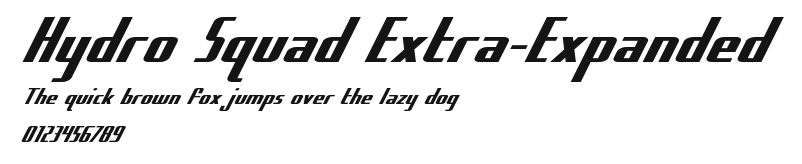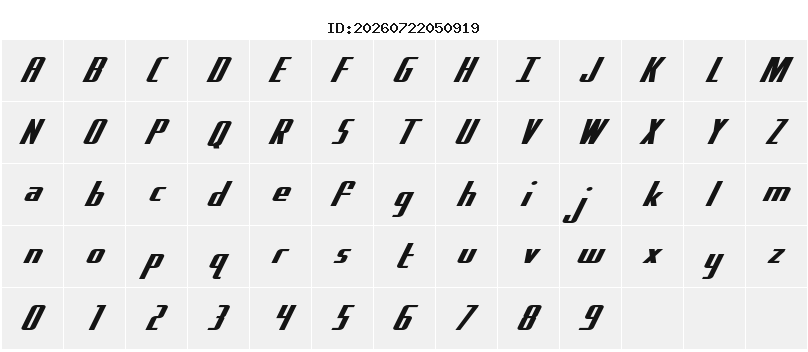
Hydro Squad Extra-Expanded Preview
• Font Name: Hydro Squad Extra-Expanded
• Font Style: Extra-Expanded Italic
• Font ID: Hydro Squad Extra-Expanded: 2014
• Full Font Name: Hydro Squad Extra-Expanded
• Version: Version 1.0; 2014
• PostScript Name: HydroSquadExtra-Expanded
About Hydro Squad Extra-Expanded.ttf
Hydro Squad Extra-Expanded.ttf is a modern, elegant sans-serif font designed for ultimate readability and visual harmony. Perfect for branding, headlines, web design, and print materials.